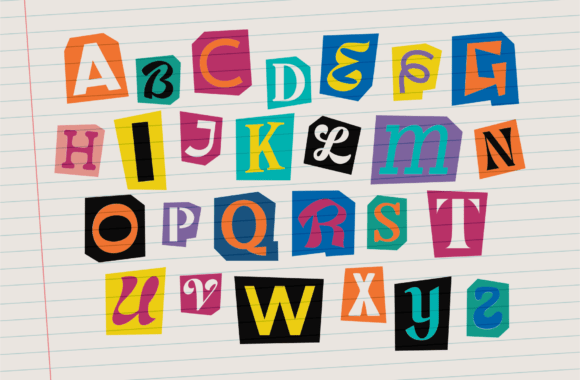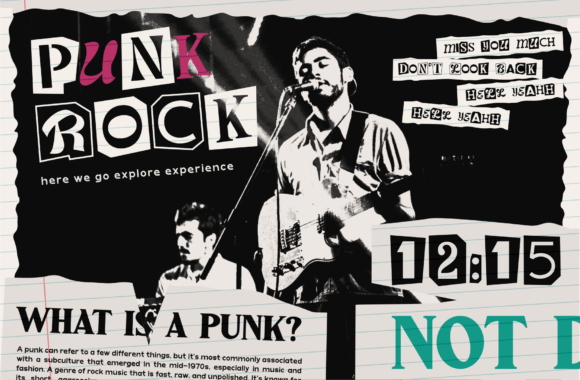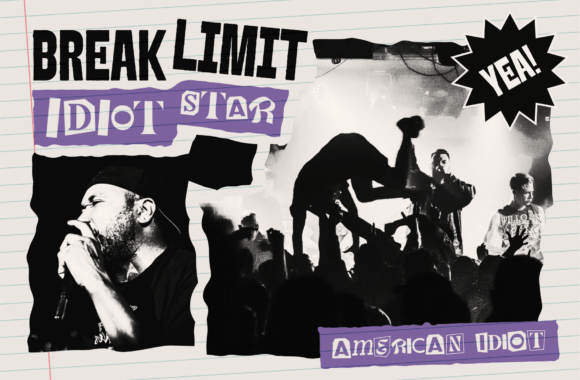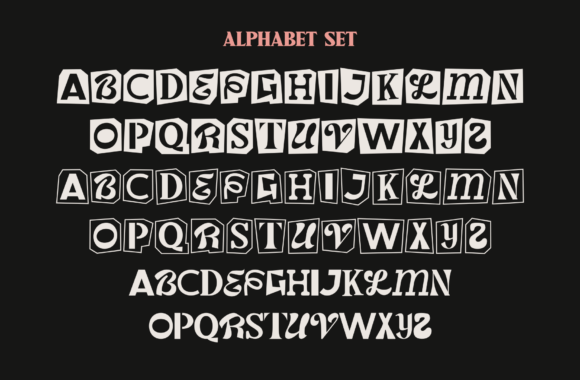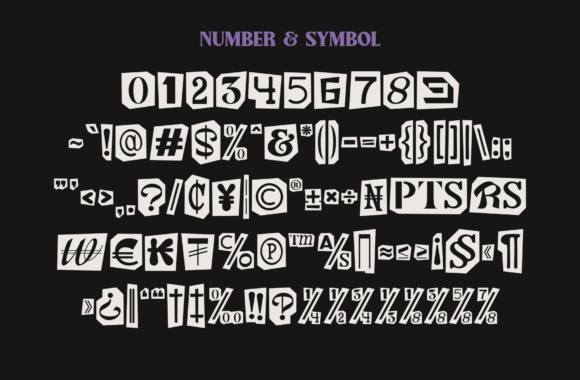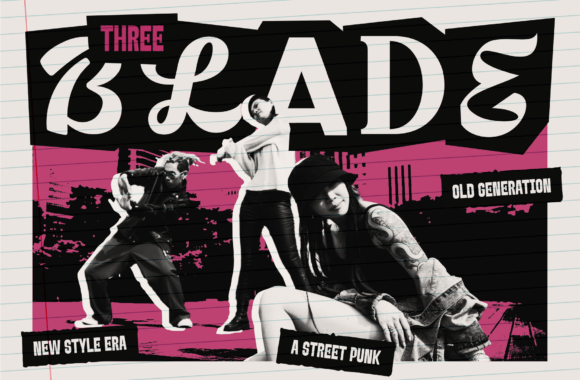
Introduction to Nocht Star Font
Have you ever found yourself in a cramped, dimly lit music venue, surrounded by the raw energy of a live punk show? The air is electric, the music is loud, and the sense of community is palpable. It’s in these moments that we’re reminded of the power of creative expression and the importance of individuality. For designers, finding the right font to capture this essence can be a challenge – until now.
Enter the Nocht Star Font, a bold and rebellious decorative punk font that embodies the spirit of zine culture, collage art, and DIY energy. This free download is a game-changer for designers looking to add some attitude and edge to their creative projects. With its mismatched letterforms and vibrant cut-out styles, the Nocht Star Font is the perfect design resource for anyone looking to create high-quality, visually striking graphics.
Key Features of Nocht Star Font
- Unique, hand-drawn design with a high level of detail, making it perfect for creative projects that require a personal touch.
- Designed to be used as a standalone font or layered with other design elements to create a unique and eye-catching effect.
- Perfect for designers, artists, and creatives working on projects that require a touch of elegance and sophistication, such as wedding invitations, branding materials, or editorial design.
Honest Review: Nocht Star Font
- ✨ Unique design: The Nocht Star Font has a distinctive look that sets it apart from more generic fonts.
- ✨ Versatility: This font can be used for a variety of projects, from digital designs to print materials.
- ✨ Easy to use: The font is well-behaved and easy to work with, even for designers with limited experience.
- ⚠️ Limited character set: The font only includes a limited set of characters, which may not be sufficient for some projects.
- ⚠️ Not ideal for body text: While the font is great for headlines and titles, it may not be the best choice for body text due to its ornate design.
Overall, I’m impressed with the Nocht Star Font and would recommend it to designers looking for a unique and high-quality design resource for their creative projects.
Tips for Getting the Most Out of Nocht Star Font
Use the Nocht Star Font in conjunction with a high-quality, transparent background to create a unique and eye-catching design. You can also experiment with different font sizes and styles to add visual interest to your design.
Common Use Cases for Nocht Star Font
The Nocht Star Font is ideal for creative projects, such as logo design, branding, and marketing materials. It’s also great for creating custom graphics and illustrations. With its high-quality design and transparent background, the Nocht Star Font is a valuable design resource for any project.